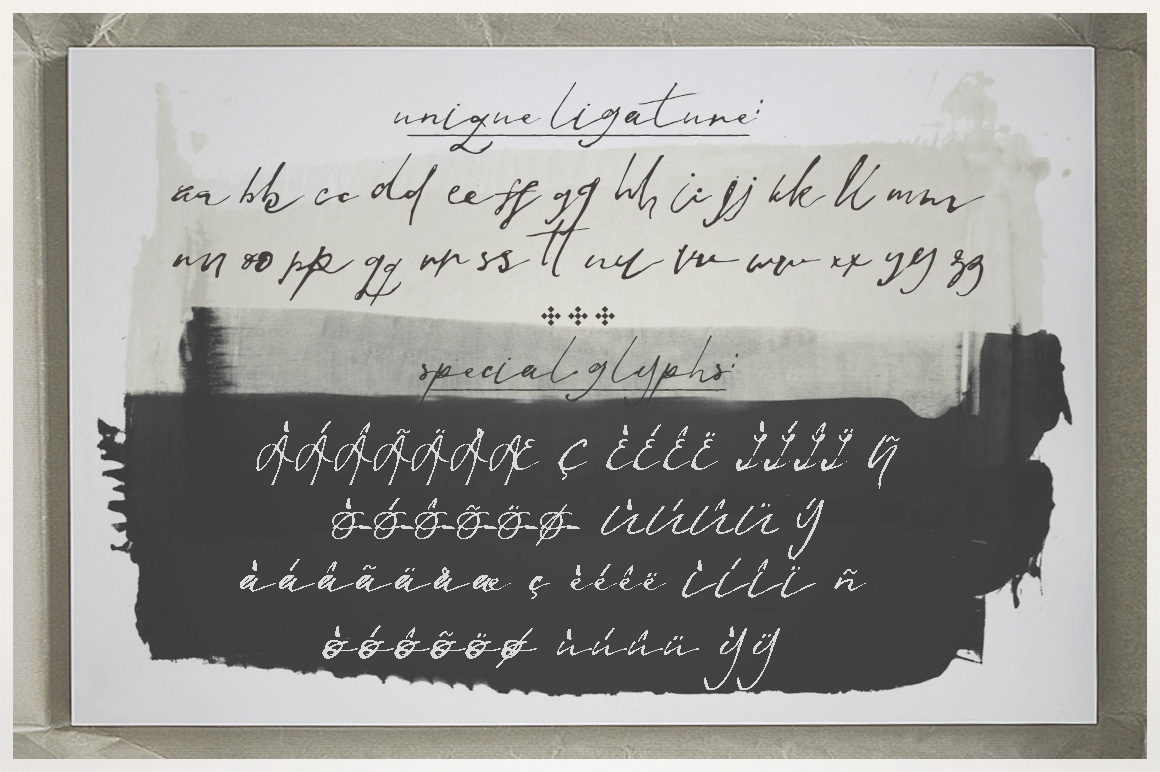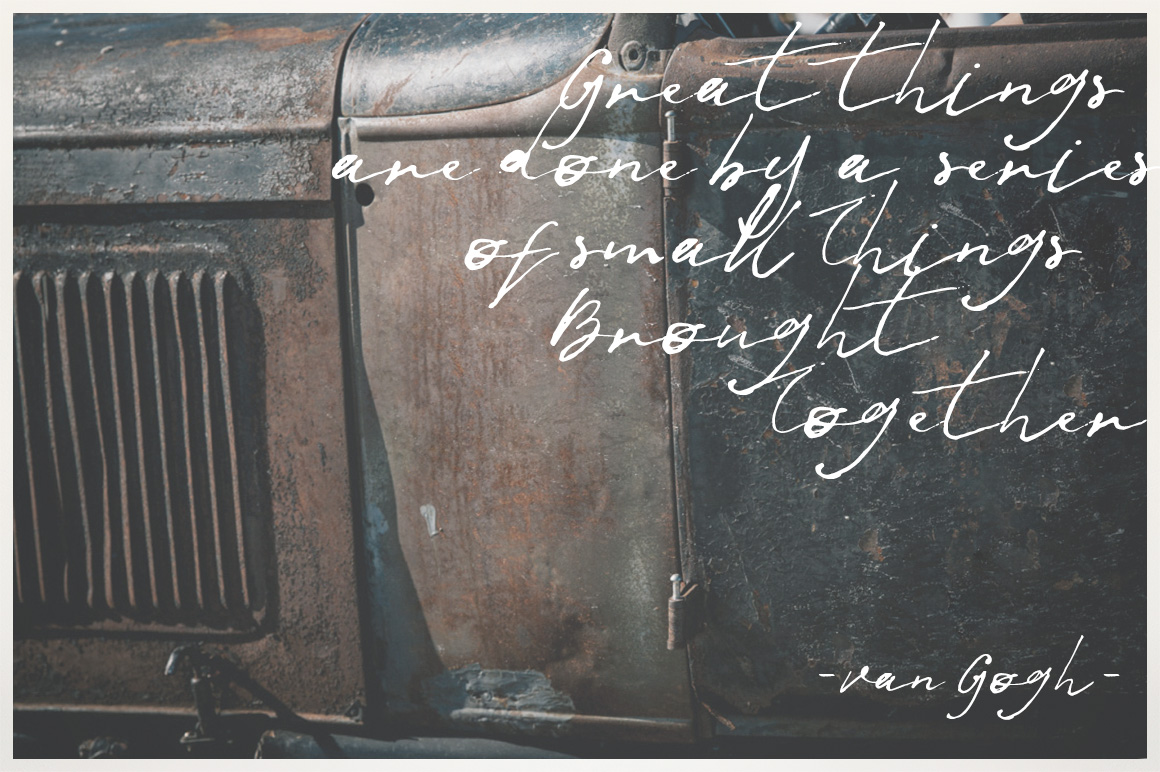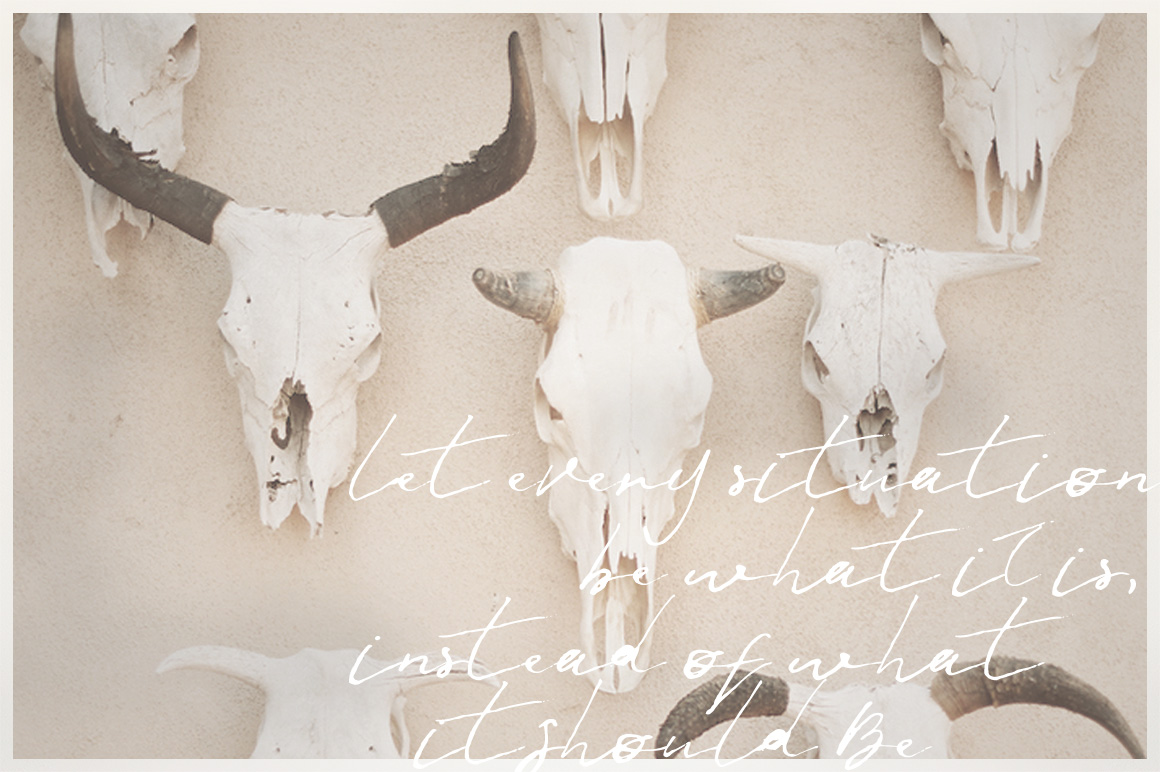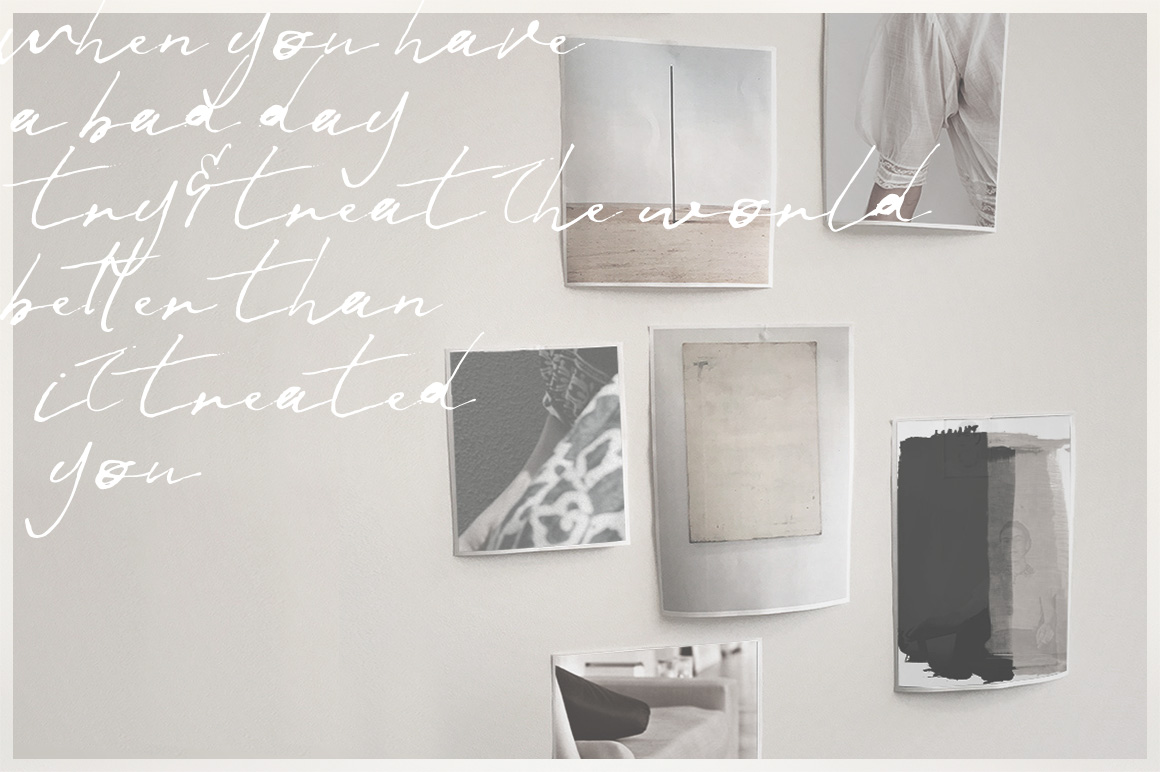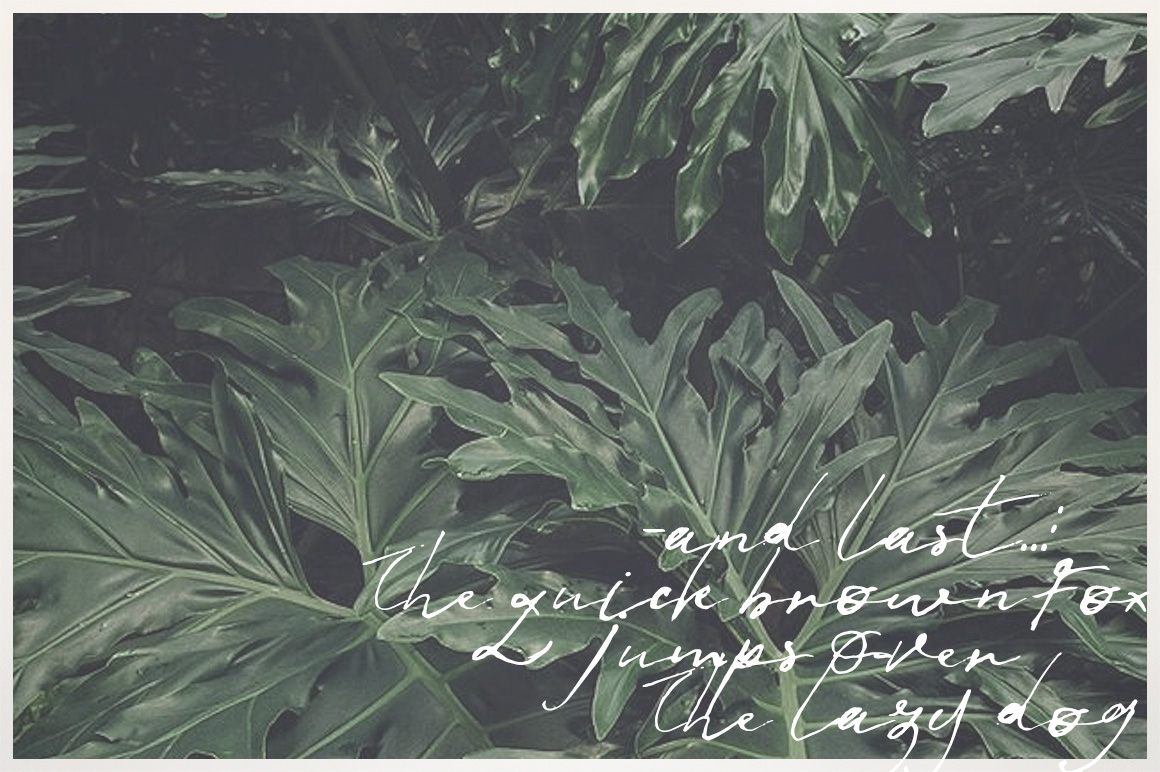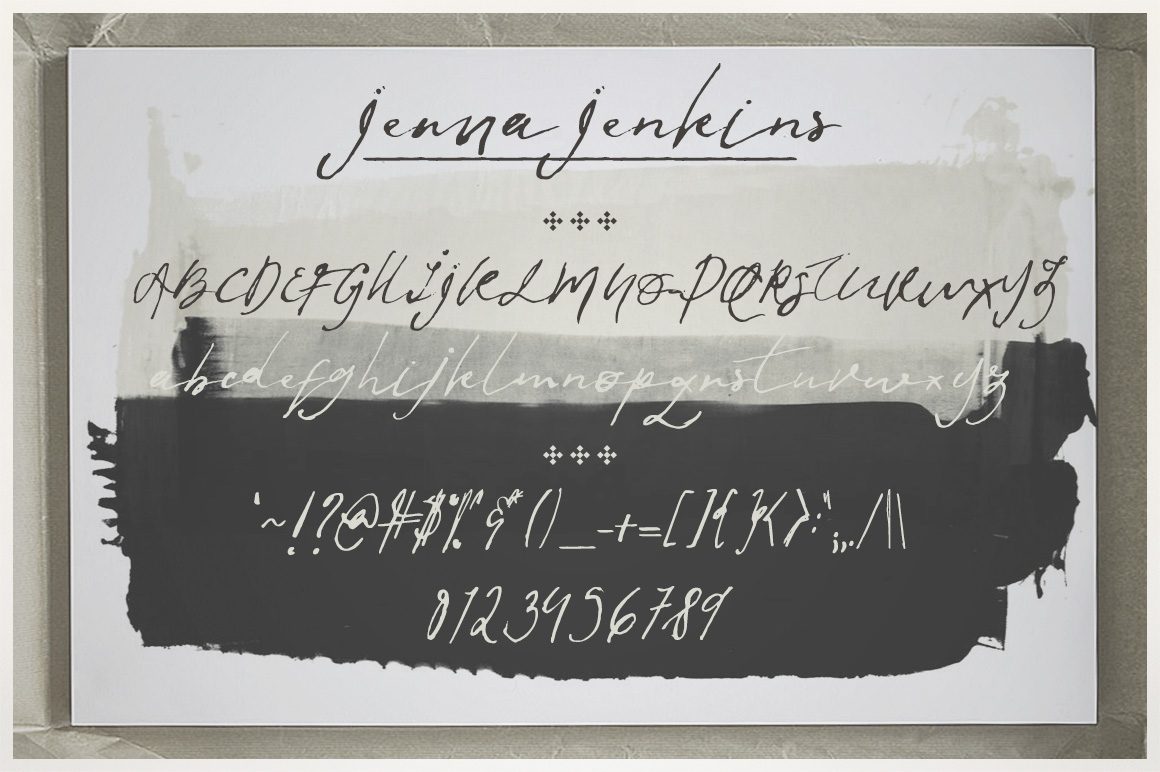
HomeScript FontsJenna Jenkins Font Script Fonts Jenna Jenkins Font FacebookXPinterestWhatsApp Jenna Jenkins Font Poster 2 Jenna Jenkins Font Poster 3 Jenna Jenkins Font Poster 4 Jenna Jenkins Font Poster 5 Jenna Jenkins Font Poster 6 Jenna Jenkins Font Poster 7 Jenna Jenkins Font Poster 8 About Jenna Jenkins Font Jenna Jenkins is a rustic font, that is created to look like your original handwriting style. DOWNLOAD ON CREATIVE FABRICAThis font is sold and delivered by Creative Fabrica. Font Canyon may earn a commission if you buy through this link. People also explored Batters Font Amsthyline Font Wedding Font Loxhen Font Peach Cuties Font Labyrinth Font Rustory Font Charlotte Font San Francisco Font 341 0 TagsJenna Jenkins Font Previous articleDelicate Little Flower FontNext articleLove and Sunshine Font LEAVE A REPLY Cancel reply Comment: Please enter your comment! Name:* Please enter your name here Email:* You have entered an incorrect email address! Please enter your email address here Website: Save my name, email, and website in this browser for the next time I comment. Personal Use Free BD Algebra Personal Use Free Read more about this font Nuku Nuku Personal Use Free Read more about this font Densmore Personal Use Free Read more about this font Just Smile Personal Use Free Read more about this font BLOG Best Fonts for YouTube Videos: Make Your Thumbnails Stand Out Best Fonts for YouTube Videos: Make Your Thumbnails Stand Out Choosing the right font can make a massive difference in how your YouTube videos perform.... Free Fonts Risk: Why Free Fonts Can Be Dangerous for Designers Modern Sans-Serif Fonts That Brands Love in 2025 Best Fonts for T-Shirt Design – Top 2025 Picks